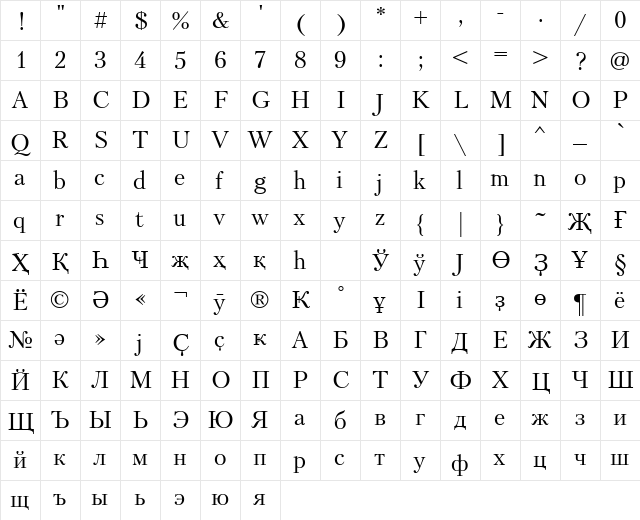
PetersburgITT Regular
| Foundry | ParaGraph |
Design Context for PetersburgITT Typeface
PetersburgITT takes a measured approach to typography — its balanced proportions and neutral character make it a reliable workhorse for both digital and print work.